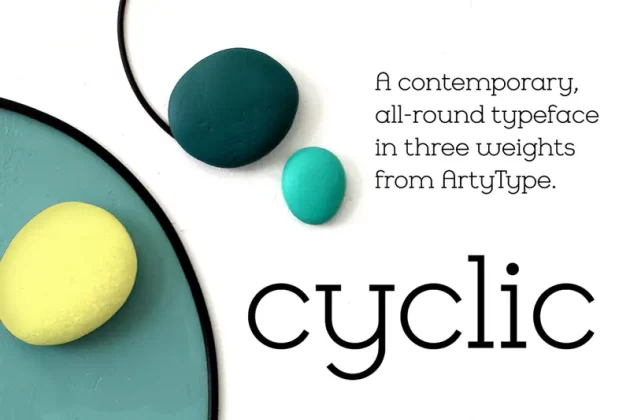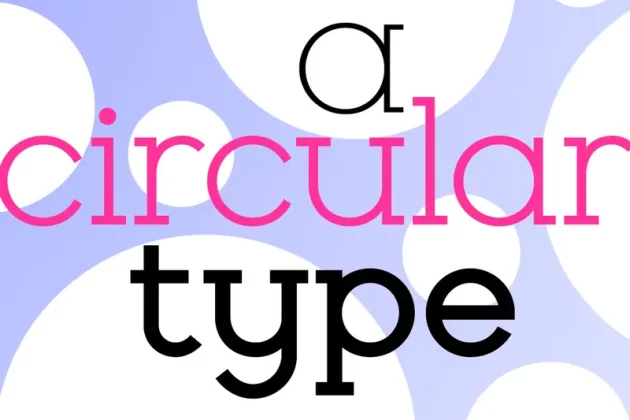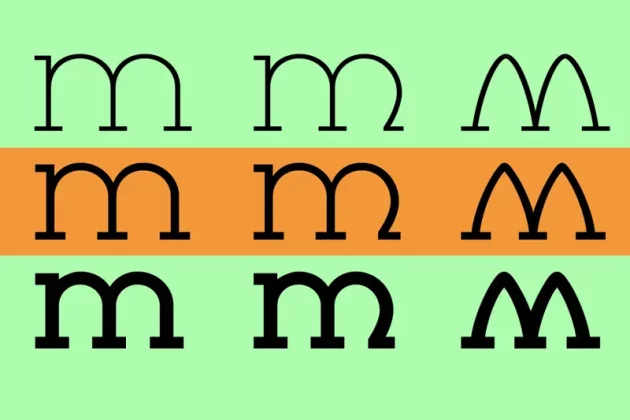
About Cyclic Font
Cyclic is a stylish and modern slab serif typeface in three practical, highly legible weights. The family volume includes desktop (OTF) and web formats (WOFF, WOFF2, EOT) of each style.
The name ‘cyclic’ suits this typeface in several ways. Firstly because I wanted to create an ‘all-round’ typeface (pun intended) that could adapt to most applications, but also, as the dictionary definition explains – “occurring in circles, regularly repeated”.
The basis for a lot of the characters did begin with a circle or sections of one; the equally distributed, rounded forms of this font are complemented however by the vertical strokes, and further counter-balanced by angular slab serifs on the remaining glyphs.
Curved alternates with a celtic vibe are also included in the fonts and feature on the default slots in the separate Cyclic Uncial set.